2025 Gerard Unger Scholarship results
We are happy to announce the winner of the 2025 Gerard Unger Scholarship: the Newz font family by Manau Quellec, created while studying at Ésad Amiens under the tutelage of Sébastien Morlighem.
Winner: Newz by Manau Quellec, developed at EsadType, Amiens, France. Teachers: Sébastien Morlighem, Patrick Doan, Hugues Gentile, and Hélène Marian.
2025 winner: Newz by Manau Quellec
Congratulations to this year’s scholarship winner, Manau Quellec and his Newz font family! “Newz is a powerhouse editorial type family,” says TypeTogether co-founder Veronika Burian, “that demonstrates strong potential both conceptually and in its quality of execution and craftsmanship.” José Scaglione effused, “It looks so good, it makes me want to go into the newsprint publishing business!”
The rest of the TypeTogether team had this to say about Newz: “We love the demi-slab style with quite a bit of character across all weights. The use of vertical serifs is powerful, yet the forms manage to shed the ornamentation naturally and effectively in its sans version. One main aspect is its versatility. Newz offers the strength of vertical serifs, working equally well for refined settings and attention-grabbing headlines. Some of the medium and wide slab weights remind us of a Western style, which is great for posters and branding. The italic complements the text well, with expressive contrast against the sturdy uprights. The sans is very beautiful, perhaps even stronger than the slab, and some of its contradictory traits (like abrupt reversed cuts on ascenders) contribute to creating a captivating rhythm in word and text formation.”
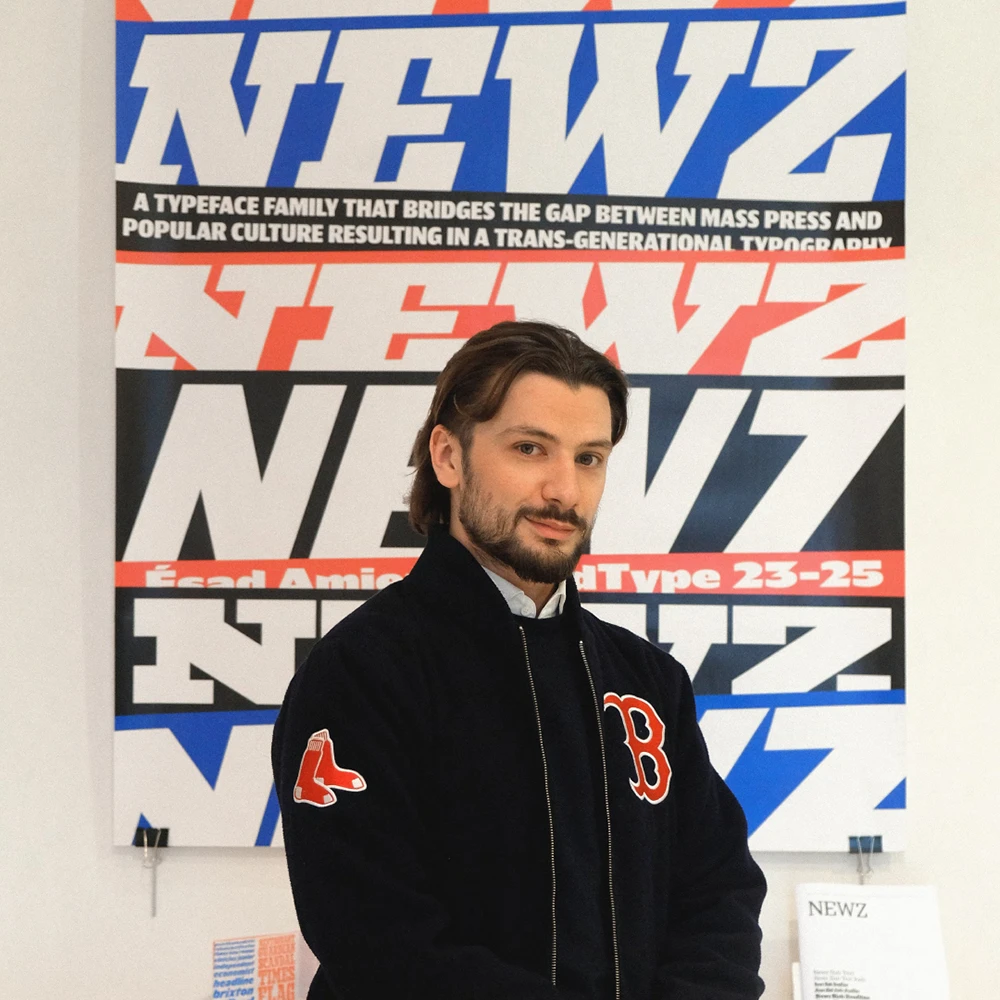
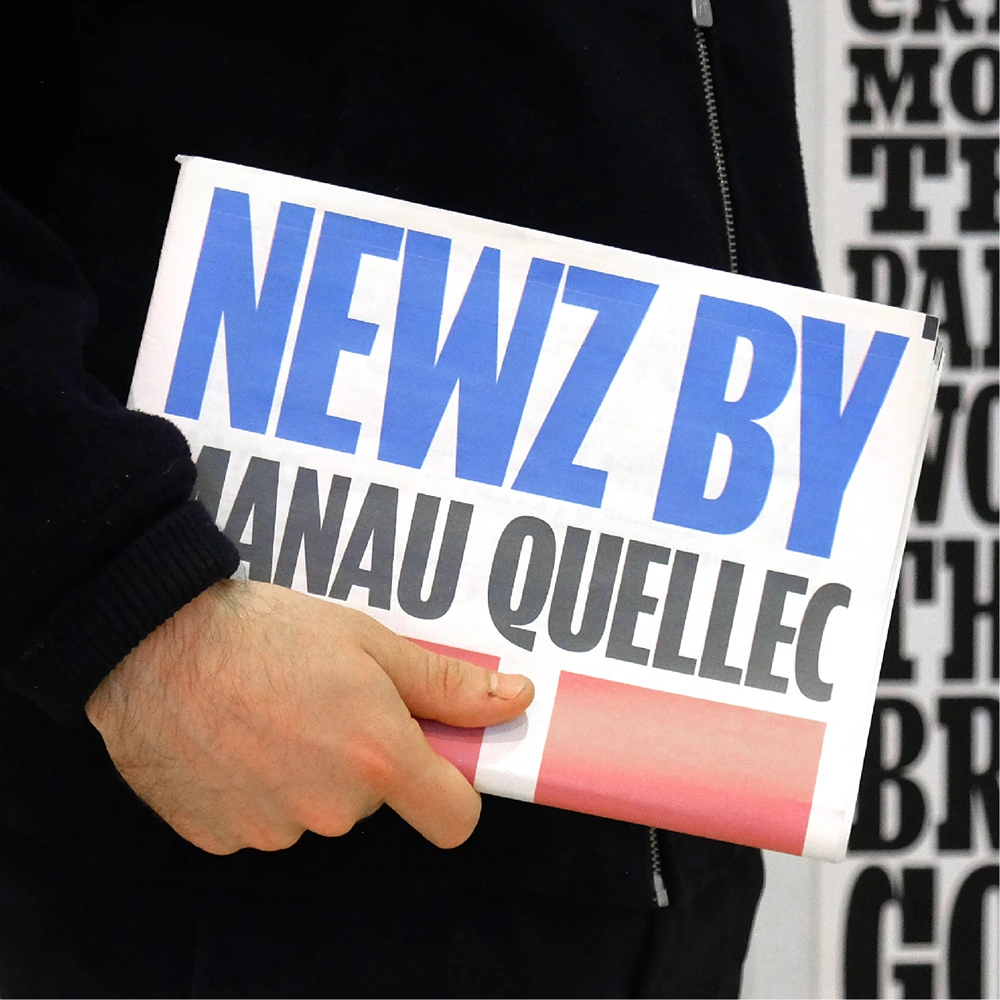
Winner: Newz by Manau Quellec.
Yaprak Buse Çağlar
Yaprak Buse comes from İstanbul, Türkiye. After completing her bachelor’s degree, she participated in TypeParis ’22, then attended EsadType, and just acquired her master’s degree at Ésad Amiens. During her studies, Yaprak was fascinated by the process of creating typefaces for editorial use based on linguistic research while combining ornamental features. She plans to continue her type journey in Atelier National Recherche Typographie (ANRT), Renouveau project. When she isn’t busy crafting letters, Yaprak enjoys solving Sudoku puzzles, exploring museums, and painting watercolors.
Merit: Aksan by Yaprak Buse Çağlar, developed at EsadType, Amiens, France. Teachers: Sébastien Morlighem, Patrick Doan, Hugues Gentile.
Merit: Aksan by Yaprak Buse Çağlar.
Arnab Chakraborty
A type design student at EsadType (2023–25), Arnab Chakraborty specialises in multiscript typography with a focus on Latin, Bengali, and Devanagari. With a background in Architecture, his research-oriented approach helps him explore the interplay between structurally diverse scripts in his works. He is passionate about developing culturally sensitive typefaces and is currently expanding his skills in font production and technology. Arnab sees type design as a way to merge detail, function, and tradition — the very qualities he sought in his architectural works.
Merit: Manik by Arnab Chakraborty, developed at EsadType, Amiens, France. Teachers: Sébastien Morlighem.